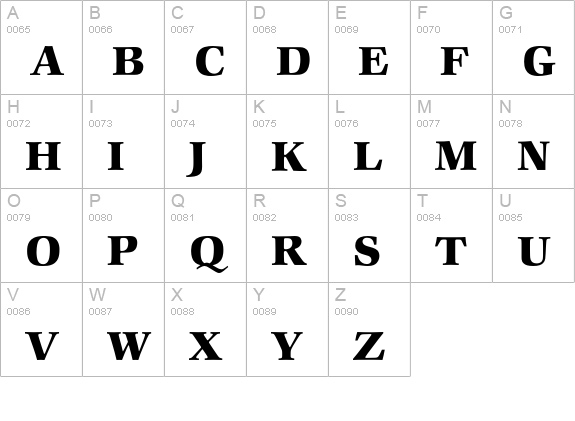
Comenius R Font Details
Comenius R is a stunning and elegant serif font that exudes sophistication and timeless charm. Its classic yet modern design makes it a versatile choice for a wide range of design projects, from branding to editorial design. The carefully crafted letterforms and beautiful serifs give Comenius R a refined and polished look that is sure to elevate any project. What sets Comenius R apart is not just its aesthetic appeal, but also its accessibility. This exquisite font is available for free download at FontsMarket.com, making it easily accessible to designers and creatives looking to add a touch of elegance to their work without breaking the bank. Whether you're working on a print project, a website design, or anything in between, Comenius R is a fantastic choice that will make your text stand out with its unique and sophisticated style. Download Comenius R today and take your designs to the next level.